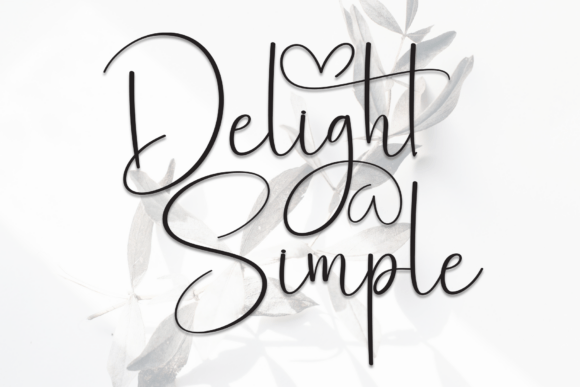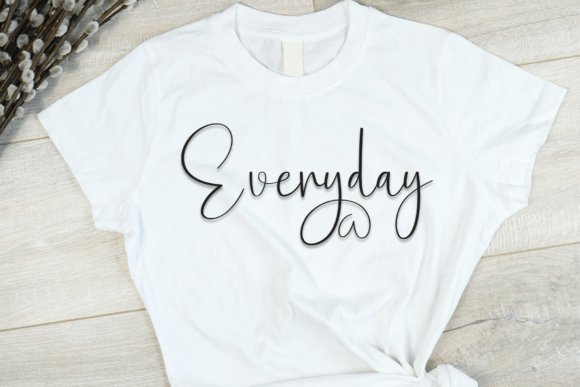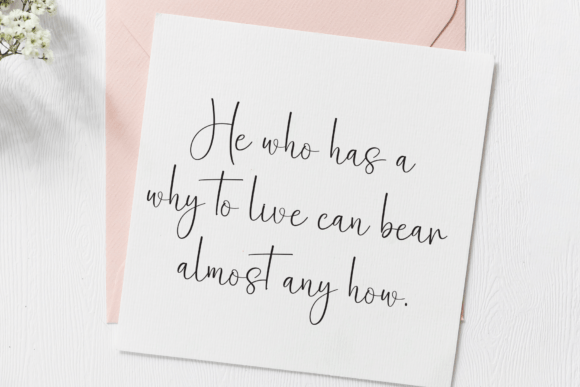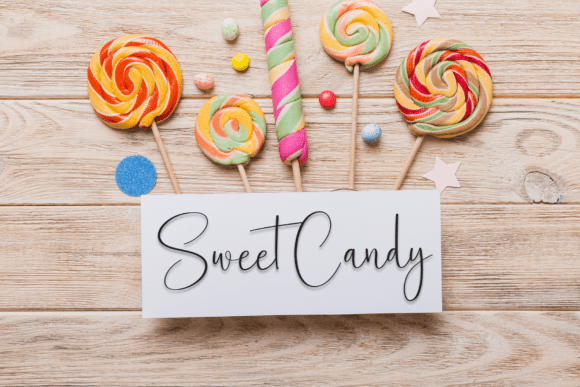
Delight Simple Font
About the Delight Simple Font
Make a bold statement with Delight Simple Font, a powerful and memorable font. Delight Simple is a delicate and whimsical handwritten font with an airy, graceful style. Its fine strokes and charming swashes make it ideal for branding, invitations, greeting cards, and creative projects that need a personal touch. This font exudes warmth and elegance in every letter.
Delight Simple’s delicate nature makes it perfect for projects requiring a touch of whimsy and elegance, such as wedding invitations, logos for boutiques, or packaging for artisanal goods. However, its thin strokes and intricate details make it less suitable for body text or UI elements where readability is paramount. Avoid using it for long paragraphs or small sizes.
To complement its airy feel, consider pairing Delight Simple with a clean sans-serif like Lato for body text or a classic serif like Garamond for a more formal feel. A geometric sans-serif like Montserrat could offer a modern contrast, while a playful script font would enhance its whimsical personality, but should be used sparingly to avoid visual clutter.
The overall personality of Delight Simple is charming and friendly, conveying a sense of warmth and approachability without being overly childish or informal. It is best suited for brands aiming for a sophisticated yet approachable image.